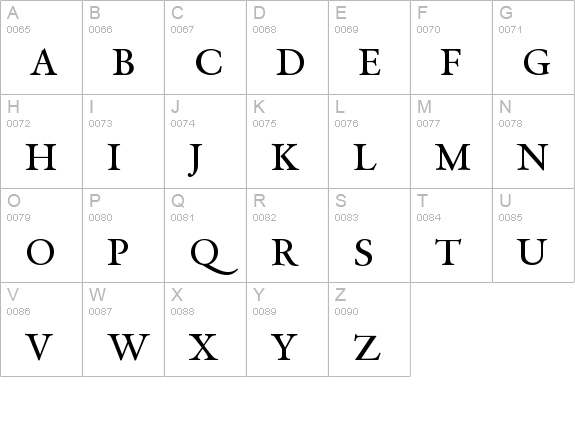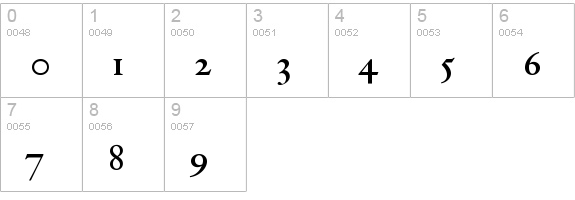
DTLVandenKeereSD-Medium Font Details
DTLVandenKeereSD-Medium is a balanced, medium-weight variant in the DTLVandenKeereSD typeface family \xE2\x80\x94 well suited to sub-headlines, navigation, and balanced editorial work.